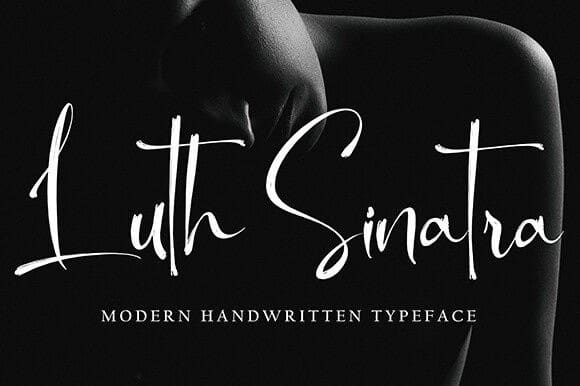
Luth Sinatra Font
Luth Sinatra Font with new style, this font will perfect for many different project ex: quotes, logo, blog header, poster, banding, letter, invitation, stationery, etc…